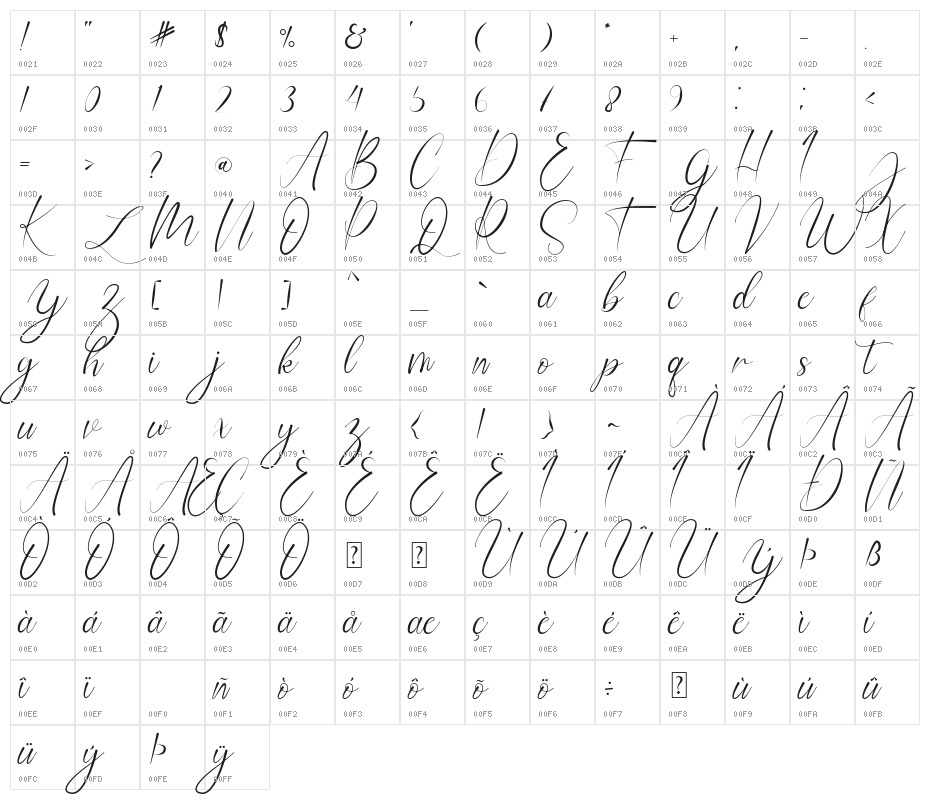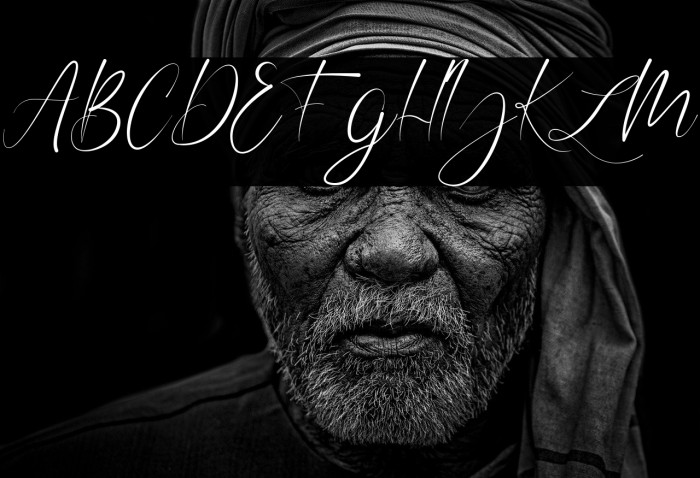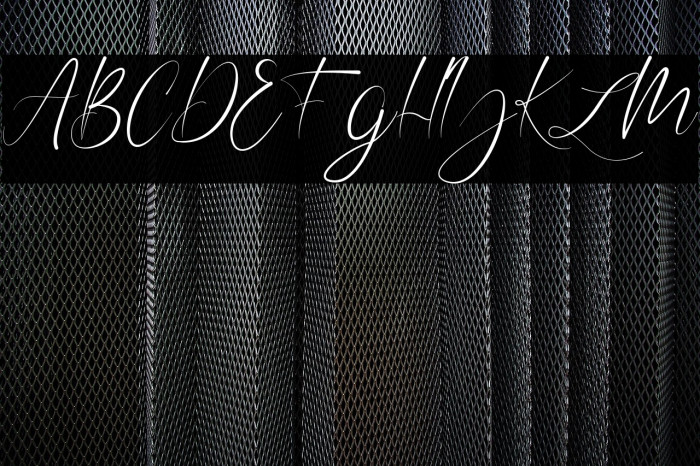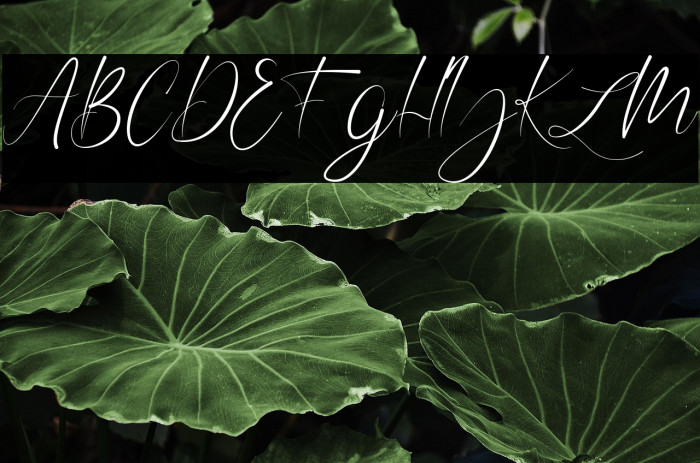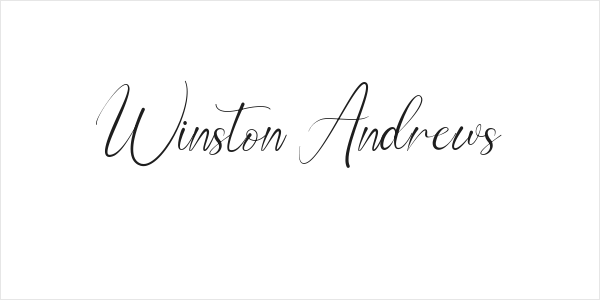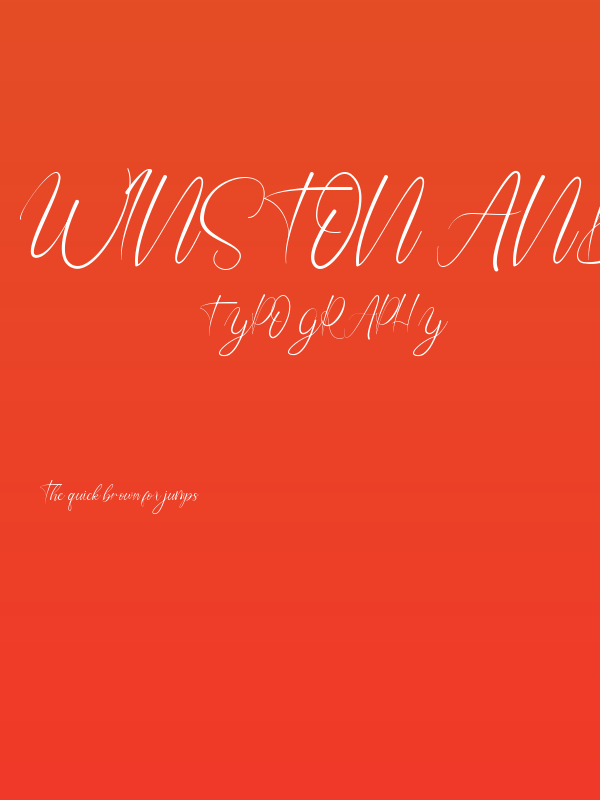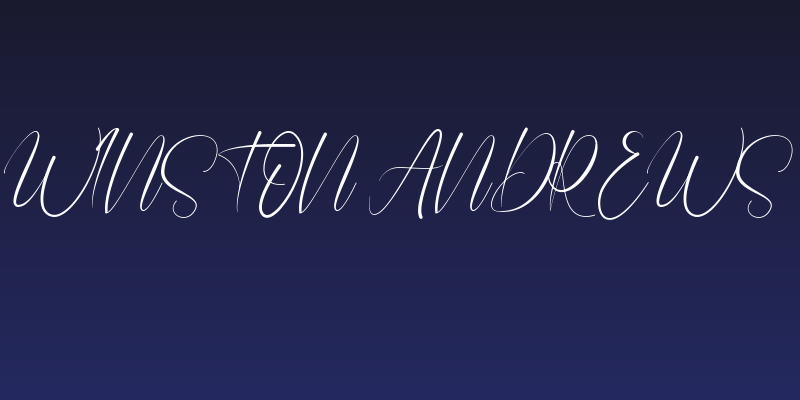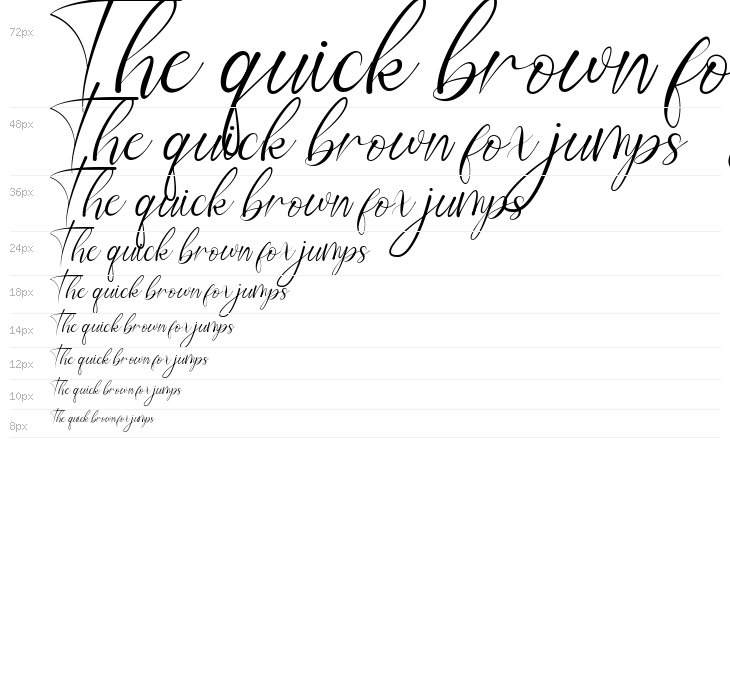
Winston Andrews Font
Winston Andrews Description
This font is an elegant and flowing script style that exudes sophistication and grace. The characters are designed with a delicate, cursive flair, featuring smooth, sweeping curves and a consistent slant that gives it a dynamic and lively appearance. The uppercase letters are tall and slender, while the lowercase letters maintain a harmonious balance with their slightly more compact form. The numerals and special characters are crafted with the same attention to detail, ensuring a cohesive look throughout. This font's high contrast in stroke thickness adds to its refined and polished aesthetic, making it ideal for projects that require a touch of elegance and class.